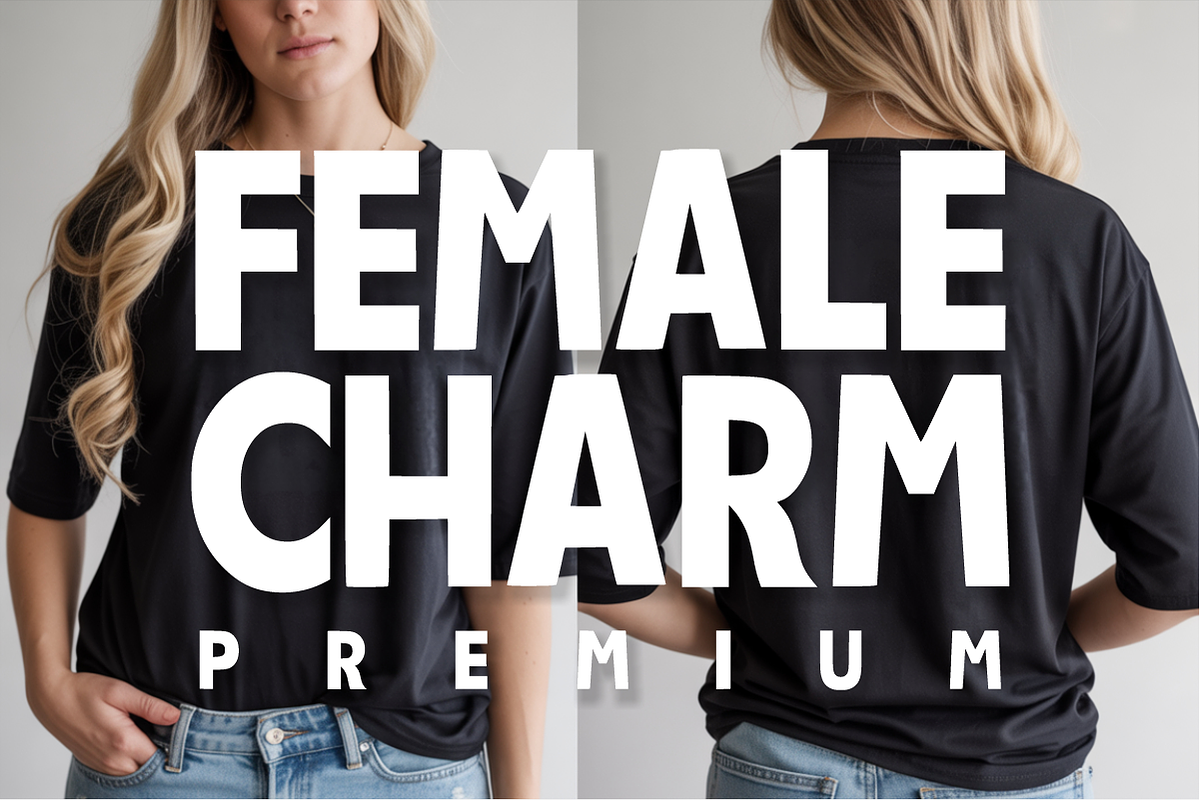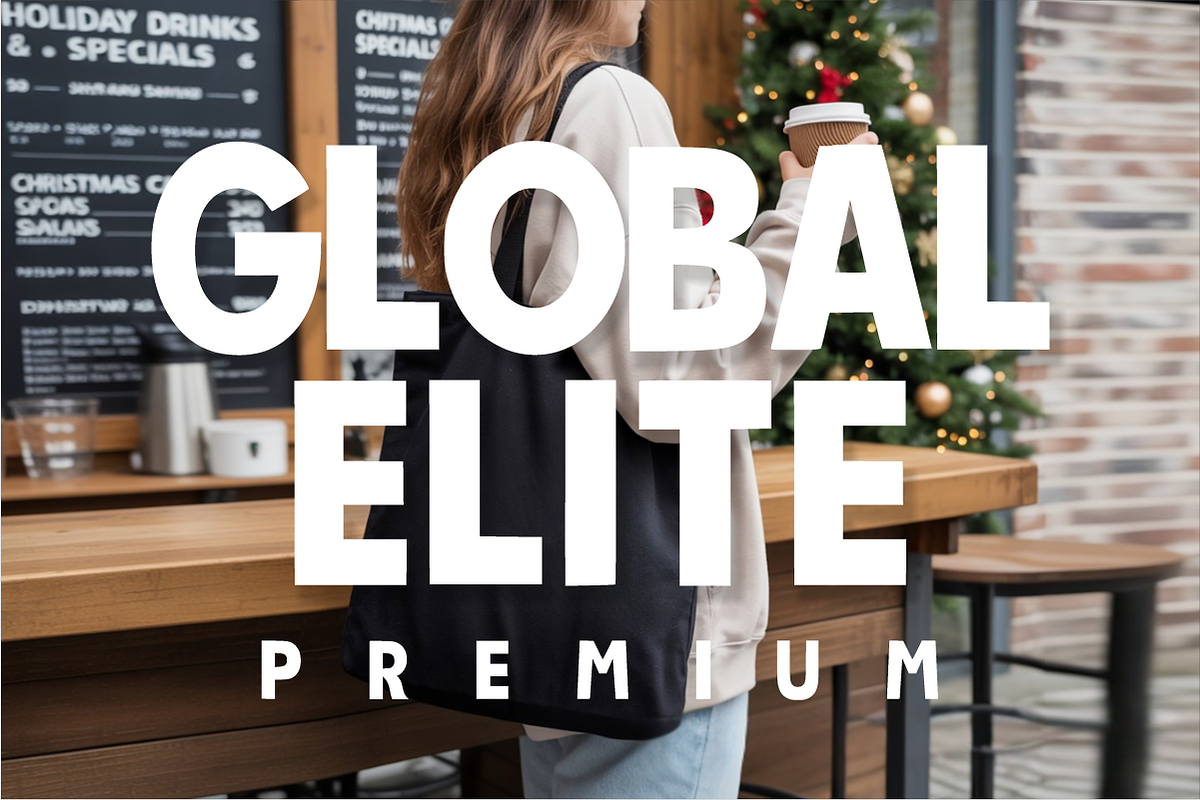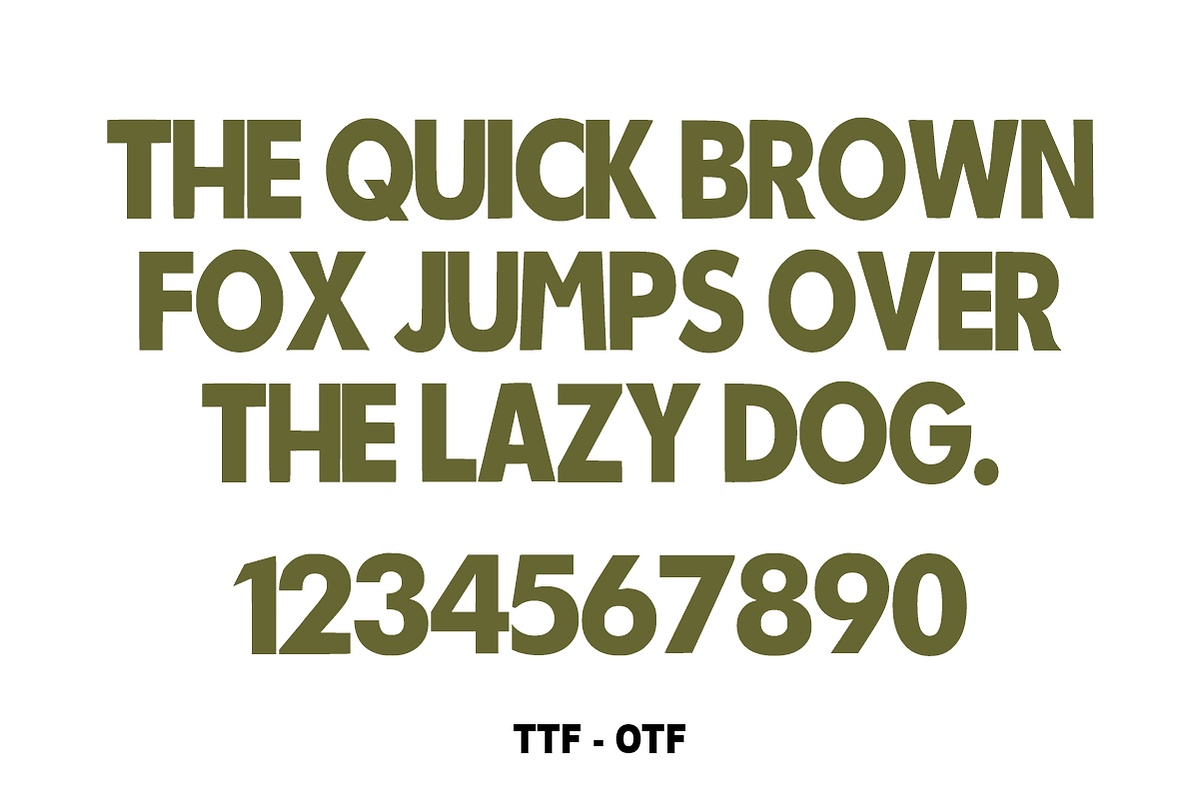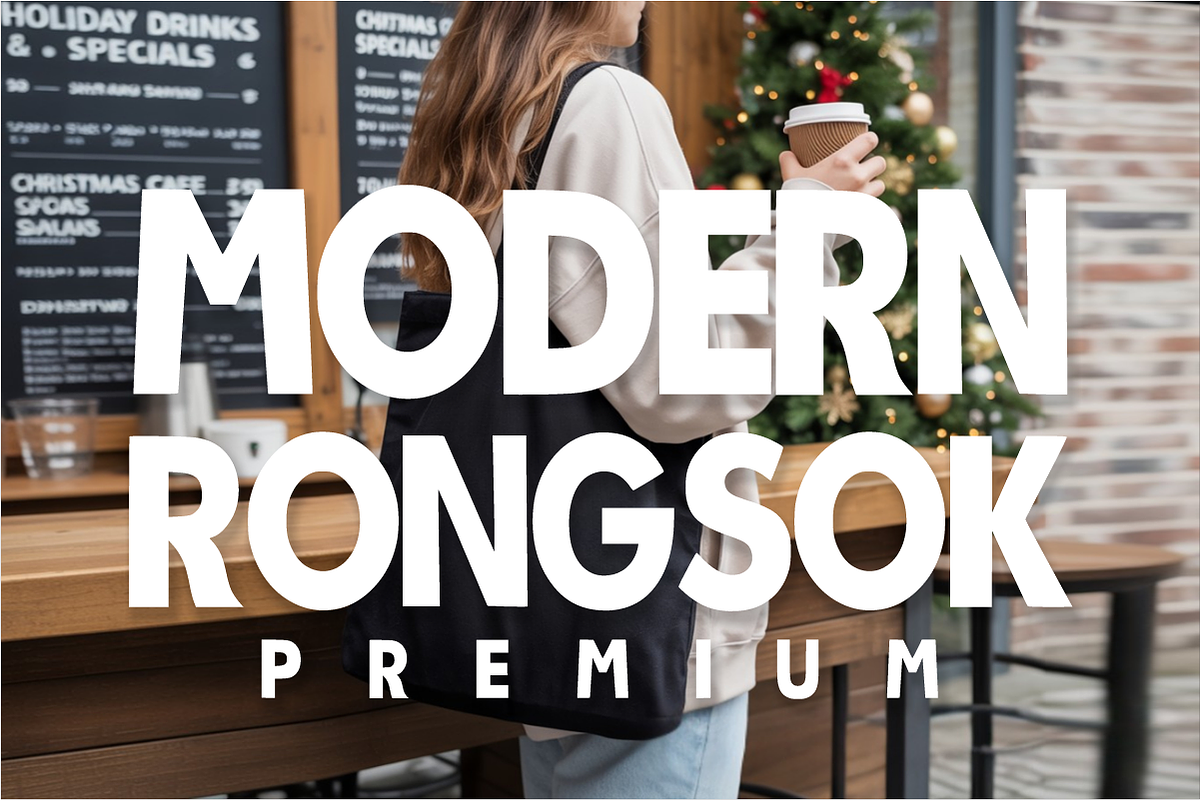
Modern Rongsok – Bold Modern Sans
Modern Rongsok – Bold & Trendy Modern Sans ☕🏙️
Make a powerful statement with a typeface designed for the modern era!
Modern Rongsok is a high-impact, extra-bold display font that blends clean minimalist lines with unique, edgy personality. Designed for maximum visibility, its thick strokes and tight kerning create a commanding presence that is perfect for contemporary branding, high-end editorial layouts, and trendy social media graphics. Whether you're designing a sleek cafe menu or a bold magazine header, Modern Rongsok delivers a professional and sophisticated "premium" look.
🌟 Why Modern Rongsok is a Must-Have:
Bold Visibility: The massive weight ensures your message is the focal point of any design, even from a distance.
Modern Aesthetic: Features clean, sharp cuts with subtle unique details that set it apart from standard sans-serif fonts.
Professional Versatility: Perfectly suited for luxury branding, fashion spreads, minimalist posters, and urban lifestyle content.
🎨 Perfect For:
🏙️ Branding & Logos: Create strong, memorable identities for startups, cafes, and lifestyle brands.
📸 Social Media Graphics: Perfect for eye-catching Instagram quotes, YouTube thumbnails, and Pinterest pins.
📰 Editorial & Magazines: Bold headlines, title sequences, and high-impact cover designs.
👕 Apparel & Merchandise: Sleek t-shirt graphics, tote bag designs, and modern streetwear branding.
☕ Cafe & Restaurant Menus: Modern headers for menu boards, signage, and promotional flyers.
Character Set: All-Caps Uppercase Letters (A-Z) with a premium bold finish.
Numbers & Symbols: Complete numerals (0-9) and essential simple punctuation.